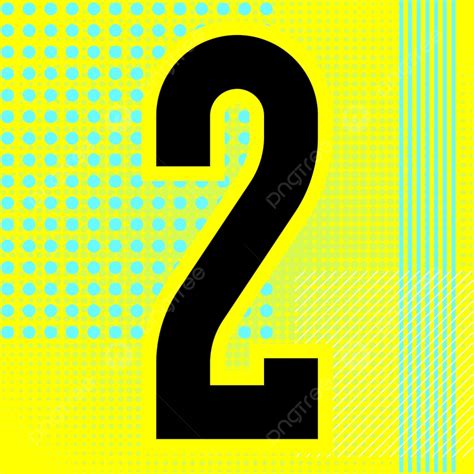
Font Number 2. Web number fonts is a style that is dedicated to just the number letters.
Web number fonts is a style that is dedicated to just the number letters.
Web number fonts is a style that is dedicated to just the number letters. Web number fonts is a style that is dedicated to just the number letters.